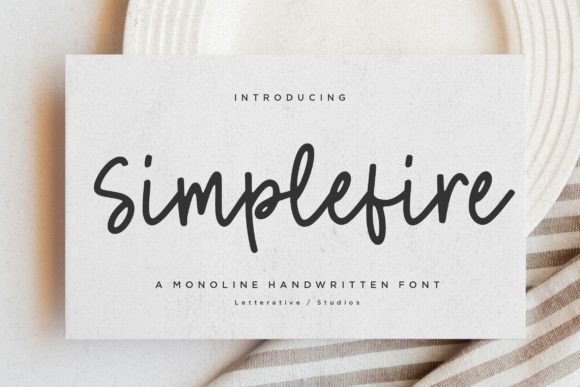
Embark on a typographic journey with Simplefire, a script font that exudes elegance and grace. Its monoline strokes, reminiscent of a calligrapher's fluid hand, weave a tapestry of beauty and intrigue. As the name suggests, Simplefire ignites your creativity, setting your designs ablaze with its fiery charm.
Simplefire is not just a font; it's an artistic expression, a symphony of curves and lines that dance across the page. Its delicate nature lends itself to a myriad of applications, from wedding invitations and greeting cards to branding and packaging. Imagine your wedding vows penned in Simplefire's enchanting script, each letter flowing into the next like a gentle whisper. Or envision your brand logo adorned with Simplefire's timeless elegance, leaving an indelible mark on your customers' minds.
With Simplefire, you're not limited to the ordinary; you're invited to explore the extraordinary. Its versatility extends beyond traditional mediums, making it an ideal choice for digital designs. Craft captivating social media posts, design eye-catching website headers, or create stunning digital art that captivates your audience. Let Simplefire's strokes ignite your imagination and set your creativity ablaze.
Join the ranks of discerning designers who have discovered the allure of Simplefire. Adorn your creative projects with its timeless beauty, and watch them transform into masterpieces. Simplefire is more than just a font; it's an experience, a journey into the realm of typographic artistry. Embrace its charm, let your creativity soar, and let Simplefire set your designs on fire.